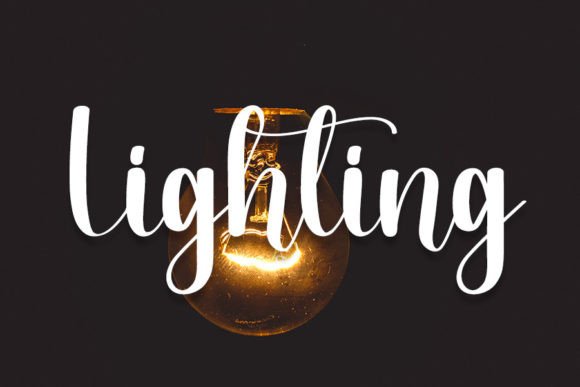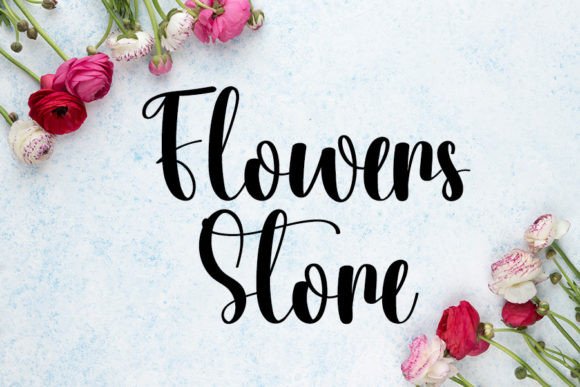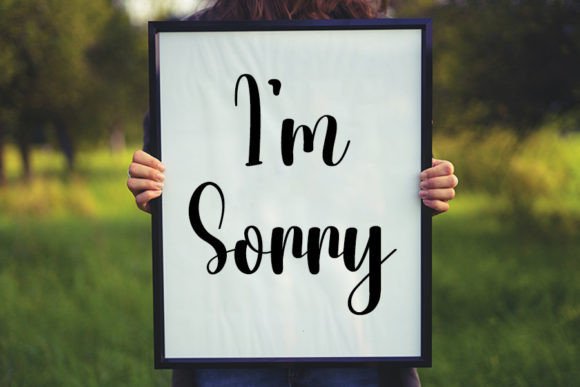
Introducing Crime Font: The Elegant and Timeless Handwritten Font
Are you a designer or crafter looking for a unique and beautiful font to elevate your projects? Look no further than Crime Font, a stunning handwritten font that exudes elegance and sophistication. With its distinct and timeless style, Crime Font is perfect for creating spectacular designs that will leave a lasting impression.
What is Crime Font?
Crime Font is a carefully crafted handwritten font that boasts an elegant touch, making it ideal for a wide range of projects, from creative designs to commercial applications. This beautiful font is designed to add a personal touch to your work, setting it apart from the rest. With its unique and refined style, Crime Font is sure to capture the attention of your audience and leave a lasting impression.
Key Features of Crime Font
- Elegant and Sophisticated: Crime Font features an elegant and sophisticated design, perfect for creating high-end designs that exude luxury and refinement.
- Handwritten Style: With its handwritten style, Crime Font adds a personal touch to your projects, making them more relatable and engaging.
- Distinct and Timeless: Crime Font’s distinct and timeless style ensures that your designs will stand the test of time, remaining relevant and stylish for years to come.
- Versatile: Crime Font is versatile and can be used for a wide range of projects, from creative designs to commercial applications.
Benefits of Using Crime Font
Using Crime Font in your projects offers numerous benefits, including:
- Enhanced Visual Appeal: Crime Font’s elegant and sophisticated design enhances the visual appeal of your projects, making them more engaging and attention-grabbing.
- Unique and Memorable: With its distinct and timeless style, Crime Font helps create unique and memorable designs that will leave a lasting impression on your audience.
- Time-Saving: Crime Font is easy to use and integrate into your projects, saving you time and effort.
- High-Quality: Crime Font is a high-quality font, ensuring that your designs look professional and polished.
How to Use Crime Font
Using Crime Font is easy and straightforward. Here are some tips to get you started:
- Choose the Right Project: Crime Font is perfect for a wide range of projects, including creative designs, commercial applications, and more.
- Experiment with Different Sizes and Styles: Crime Font comes in different sizes and styles, allowing you to experiment and find the perfect fit for your project.
- Pair with Other Fonts: Crime Font can be paired with other fonts to create a unique and visually appealing design.
- Use in Digital and Print Applications: Crime Font can be used in both digital and print applications, making it a versatile addition to your font collection.
Who Can Benefit from Crime Font?
Crime Font is perfect for a wide range of designers and crafters, including:
- Graphic Designers: Graphic designers can use Crime Font to create stunning visual designs, from logos and branding materials to brochures and flyers.
- Digital Artists: Digital artists can use Crime Font to add a personal touch to their digital art, making it more relatable and engaging.
- Crafters: Crafters can use Crime Font to create beautiful and unique handmade projects, such as cards, invitations, and scrapbook pages.
- Small Business Owners: Small business owners can use Crime Font to create professional and polished marketing materials, such as business cards, letterheads, and invoices.
In conclusion, Crime Font is a beautiful and elegant handwritten font that is perfect for designers and crafters looking to add a personal touch to their projects. With its distinct and timeless style, Crime Font is sure to elevate your designs and make them more engaging and memorable. Whether you’re a graphic designer, digital artist, crafter, or small business owner, Crime Font is a versatile and high-quality font that is sure to meet your needs.